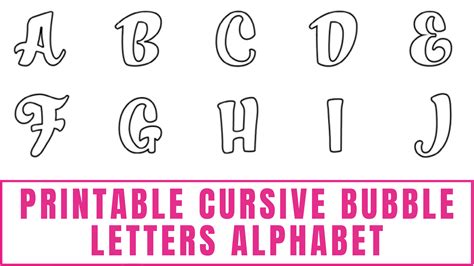
Bubble Cursive Font
In the world of typography, the Bubble Cursive Font stands out as a unique and playful choice that can add a touch of whimsy to any design project. This font is characterized by its bubbly, rounded letters that resemble hand-drawn cursive, making it perfect for projects that require a friendly and approachable aesthetic. Whether you're designing a children's book, a wedding invitation, or a social media post, the Bubble Cursive Font can bring a sense of joy and creativity to your work.
Understanding the Bubble Cursive Font
The Bubble Cursive Font is part of a broader category of fonts known as "handwriting" or "script" fonts. These fonts are designed to mimic the natural flow and imperfections of human handwriting, giving them a personal and authentic feel. The Bubble Cursive Font, in particular, is known for its large, rounded bubbles that form the letters, creating a distinctive and eye-catching style.
One of the key features of the Bubble Cursive Font is its versatility. It can be used in a variety of contexts, from formal invitations to casual greeting cards. The font's playful nature makes it ideal for projects aimed at younger audiences, such as children's books, educational materials, and party invitations. However, its unique style also makes it a great choice for more adult-oriented projects, such as wedding invitations, where a touch of elegance and whimsy is desired.
History and Evolution of the Bubble Cursive Font
The origins of the Bubble Cursive Font can be traced back to the early days of digital typography. As designers began to experiment with new styles and techniques, they sought to create fonts that could capture the essence of handwriting while also being legible and versatile. The Bubble Cursive Font emerged as one of the most popular and enduring examples of this trend.
Over the years, the Bubble Cursive Font has evolved to include a variety of styles and variations. Some versions feature more exaggerated bubbles, while others have a more subtle and refined look. Additionally, many designers have created their own interpretations of the Bubble Cursive Font, adding unique elements and flourishes to make it their own.
Applications of the Bubble Cursive Font
The Bubble Cursive Font is incredibly versatile and can be used in a wide range of applications. Here are some of the most common uses:
• Children's Books and Educational Materials: The playful and approachable nature of the Bubble Cursive Font makes it perfect for children's books and educational materials. It can help to engage young readers and make learning more fun.
• Wedding Invitations: For couples looking to add a touch of elegance and whimsy to their wedding invitations, the Bubble Cursive Font is an excellent choice. Its unique style can help to create a memorable and personalized invitation.
• Social Media Posts: The Bubble Cursive Font can also be used to create eye-catching social media posts. Its distinctive style can help to grab attention and make your content stand out.
• Party Invitations: Whether you're planning a birthday party, a baby shower, or any other special event, the Bubble Cursive Font can help to set the tone and create a festive atmosphere.
• Greeting Cards: For a personal touch, the Bubble Cursive Font can be used to create custom greeting cards. Its handwritten style can make your messages feel more heartfelt and genuine.
Designing with the Bubble Cursive Font
When designing with the Bubble Cursive Font, there are a few key considerations to keep in mind. First, it's important to choose the right size and weight for your text. The Bubble Cursive Font can be quite large and bold, so it's best to use it sparingly and in moderation. Additionally, it's important to pair the font with complementary colors and styles to create a cohesive and visually appealing design.
Here are some tips for designing with the Bubble Cursive Font:
• Choose the Right Size: The Bubble Cursive Font can be quite large, so it's important to choose the right size for your text. For headings and titles, a larger size can be effective, but for body text, a smaller size may be more appropriate.
• Pair with Complementary Colors: The Bubble Cursive Font pairs well with a variety of colors, but it's important to choose colors that complement the font's playful and whimsical style. Soft pastels, bright primary colors, and metallic accents can all work well.
• Use in Moderation: While the Bubble Cursive Font can be a great way to add a touch of whimsy to your design, it's important to use it in moderation. Too much of the font can make your design feel cluttered and overwhelming.
• Pair with Other Fonts: The Bubble Cursive Font can be paired with a variety of other fonts to create a balanced and visually appealing design. For example, pairing it with a simple sans-serif font can help to create contrast and make the text more readable.